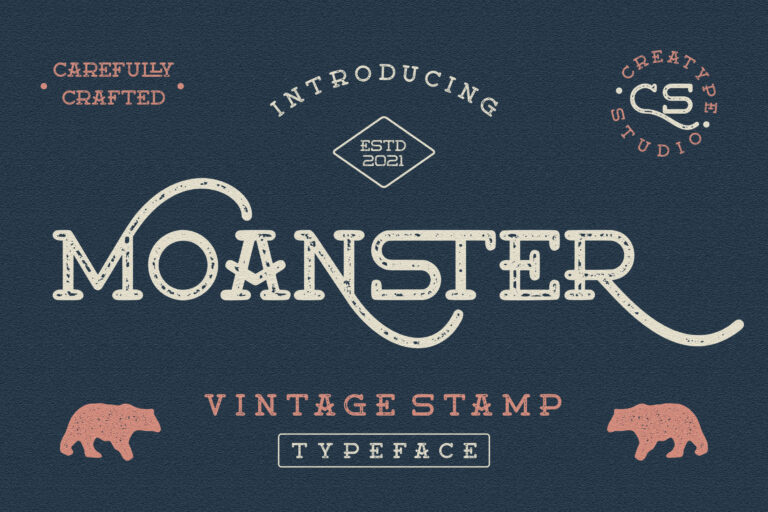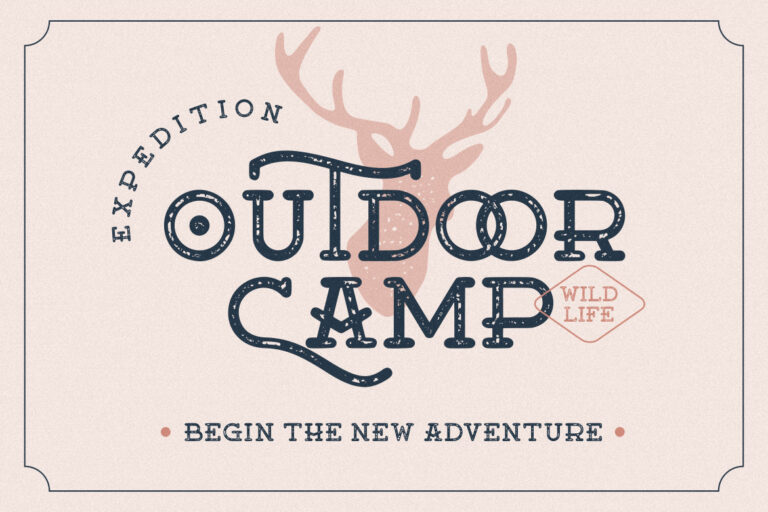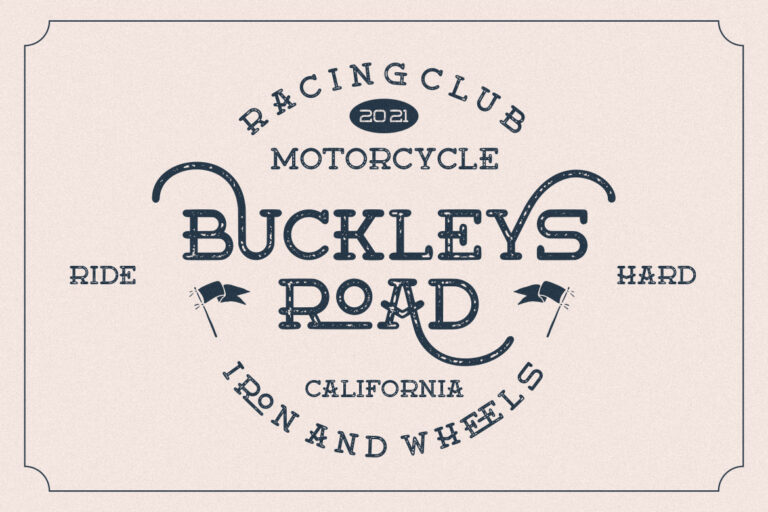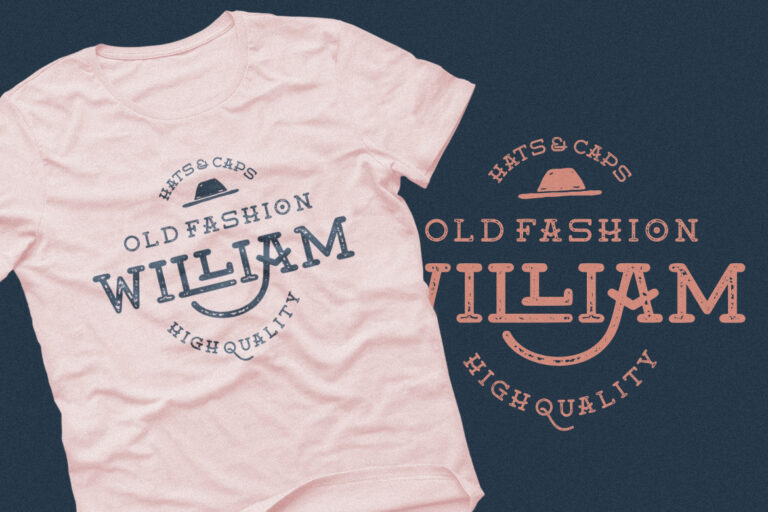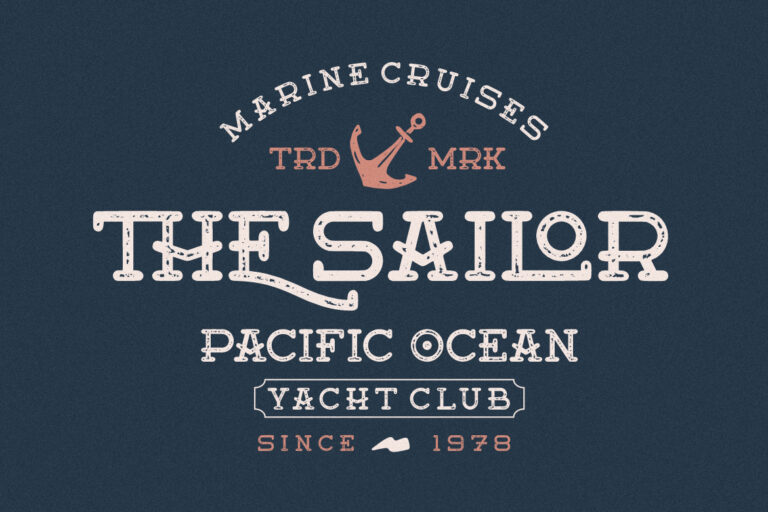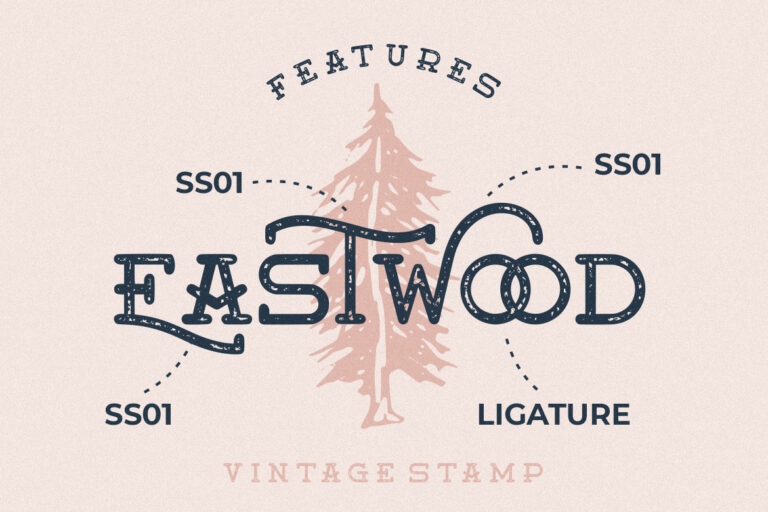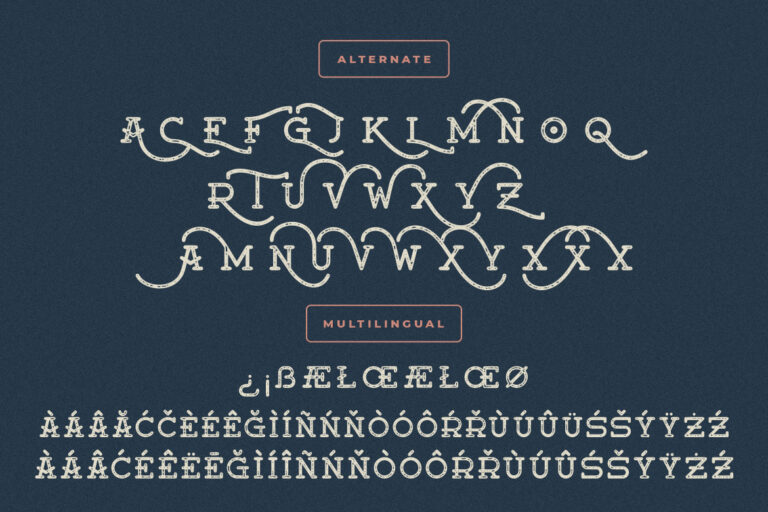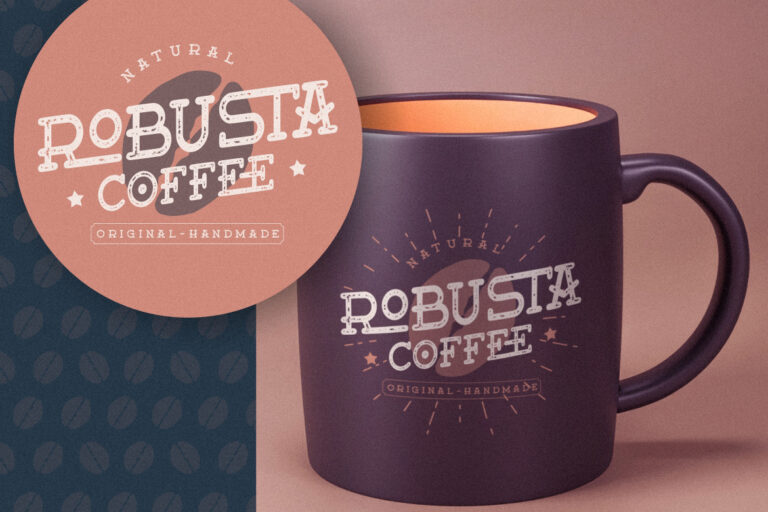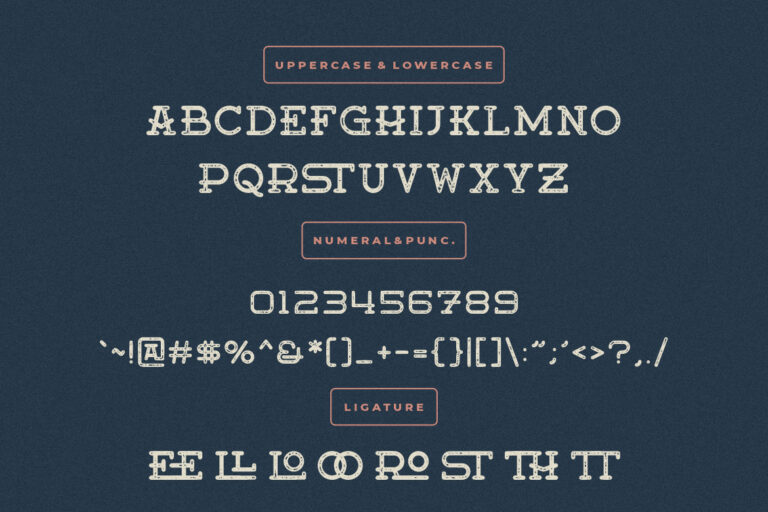
Moanster is vintage font with stamp effect that old looks and retro style.
Moanster is perfect for branding projects, logo, wedding designs, social media posts, advertisements, product packaging, product designs, label, photography, watermark, invitation, stationery and any projects that need handwriting taste.
Moanster Vintage Stamp